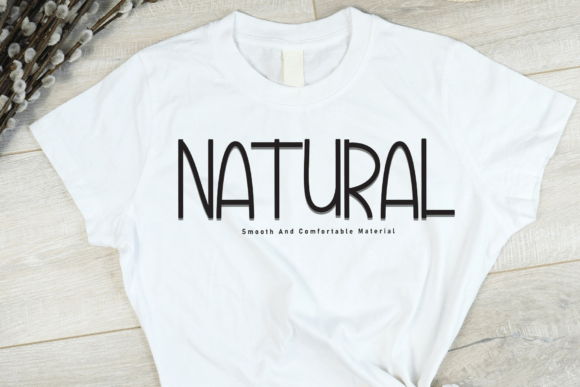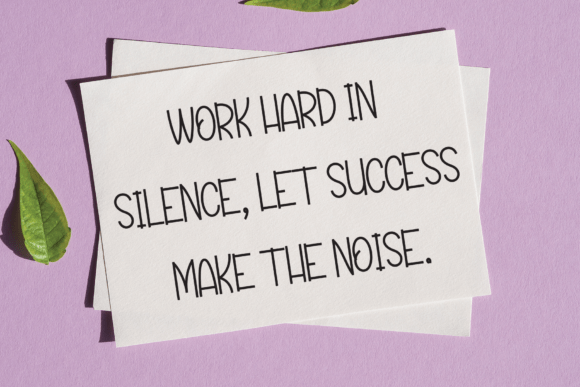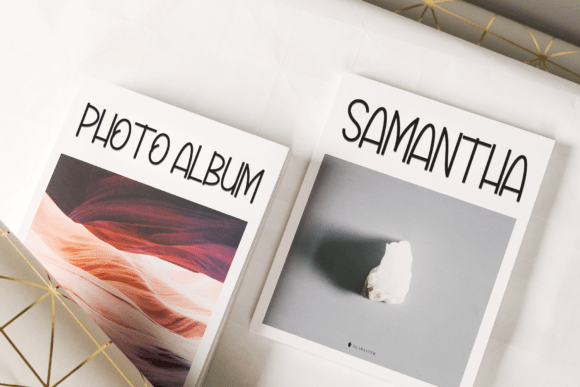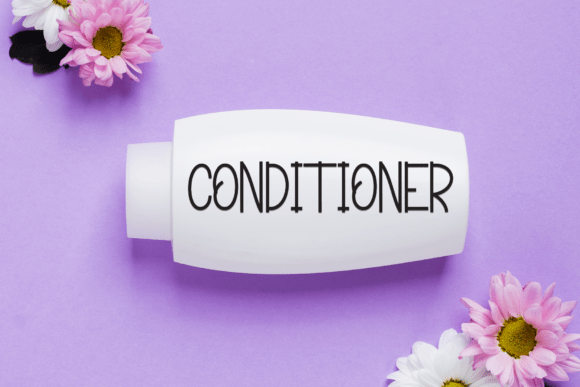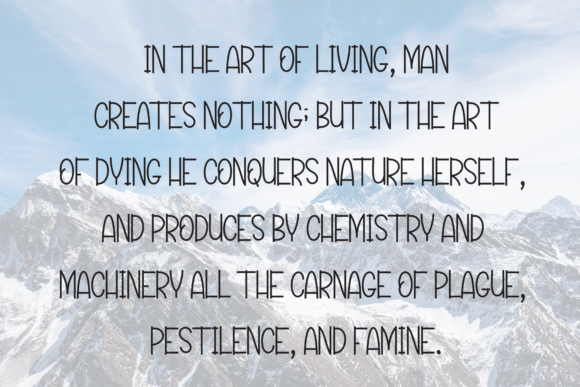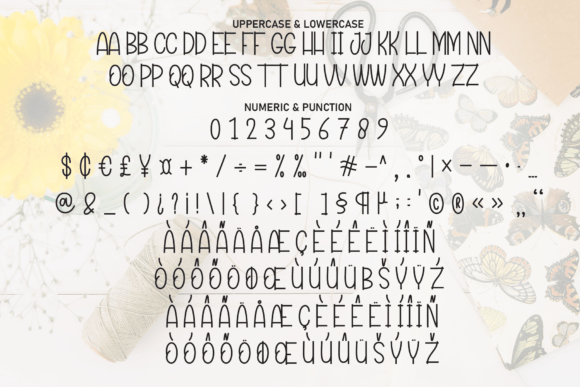
Introduction to Monday Handmade Font
Have you ever been browsing through social media, and a post catches your eye because of its unique, handmade feel? You might be wondering how designers achieve that distinctive look, and the answer could be the Monday Handmade Font. This casual and neat display font is a game-changer for designers seeking to add a touch of personality to their creative projects.
With its clean lines and relaxed structure, the Monday Handmade Font is perfect for packaging, posters, and social media graphics. Its approachable design adds charm and clarity to projects while maintaining a polished appearance. Whether you’re working on a high-quality design project or simply need a free download to spice up your social media posts, this font is an invaluable design resource.
One of the standout features of the Monday Handmade Font is its ability to work seamlessly with transparent backgrounds, allowing designers to create visually striking and professional-looking designs with ease. In this article, we’ll delve into the world of the Monday Handmade Font and explore why it’s a valuable addition to any designer’s toolkit.
Key Features of Monday Handmade Font
- High-quality, handcrafted design ideal for creative projects and unique branding
- Each character is carefully crafted with attention to detail, resulting in a truly unique and distinctive look
- Features a large character set, including uppercase and lowercase letters, numbers, and punctuation marks, making it suitable for a wide range of applications
Honest Review: Monday Handmade Font
I recently came across the Monday Handmade Font, and I must say it’s a great addition to any designer’s toolkit. As a creative professional, I’m always on the lookout for high-quality design resources that can elevate my projects.
- ✨ Unique, handmade aesthetic that adds a personal touch to designs
- ✨ Transparent background makes it easy to use in various design contexts
- ⚠️ Limited character set may not be suitable for long-form text
- ⚠️ May not be as versatile as other fonts due to its unique aesthetic
Overall, the Monday Handmade Font is a great design resource that’s perfect for designers who want to add a touch of personality to their work. While it has some limitations, its unique aesthetic and high-quality design make it a valuable addition to any toolkit.
Introduction to Monday Handmade Font
The Monday Handmade Font is a high-quality, free download design resource perfect for creative projects. With its unique, handmade aesthetic and transparent background, it’s an ideal choice for adding a touch of personality to your designs.
Tips for Getting the Most Out of Monday Handmade Font
To get the most out of the Monday Handmade Font, try combining it with other design elements, such as illustrations or graphics, to create a unique and eye-catching design.
Common Use Cases for Monday Handmade Font
The Monday Handmade Font is perfect for a variety of creative projects, including:
Business cards and marketing materials
Blog posts and social media graphics